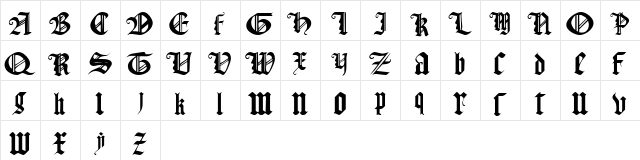
Gothic Texture Quadrata Regular
Design Context for Gothic Texture Quadrata Typeface
Gothic Texture Quadrata embraces imperfection — its rough, textured character adds raw authenticity to designs that want to feel lived-in and unconventional.
Suited to punk-influenced zines, underground music branding, streetwear, and raw, anti-corporate design.